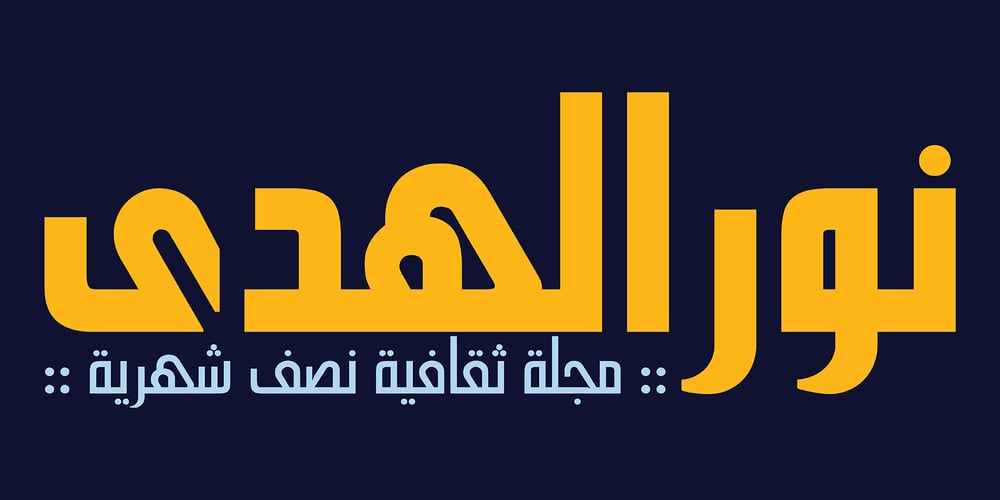
Hasan Alquds U
Hasan Alquds U font
Hasan Alquds U Font Family was designed by Hasan Abu Afash, Mamoun Sakkal and published by Hiba Studio. Hasan Alquds U contains 5 styles and family package options. Hasan Alquds U is an Arabic display typeface. It is useful for titles and graphic projects where a contemporary, streamlined look is desired. The font is based on the simple lines of Kufi calligraphy, and the uniform slope of its strokes gives it a structured, geometric feel. It supports Arabic, Persian and Urdu languages. Hasan Alquds is the first released typeface of collaboration between Hasan Abu Afash and Dr. Mamoun Sakkal.